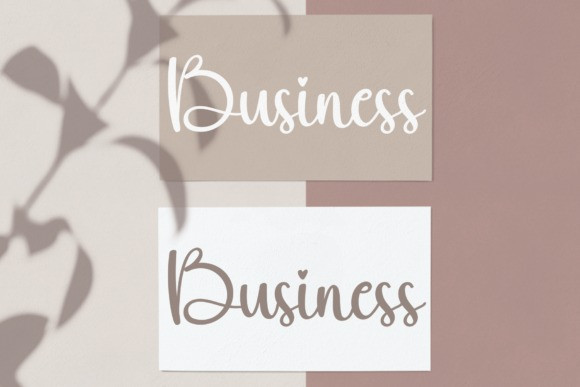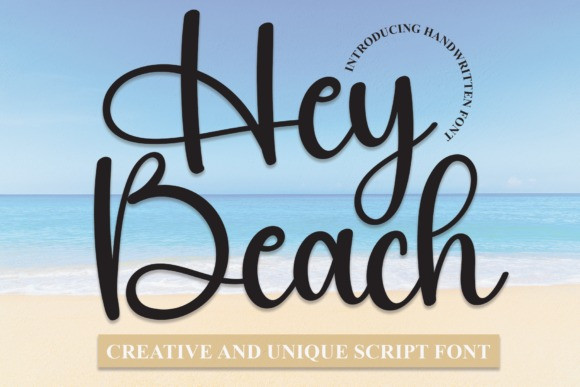
Hey Beach Font
Hey Beach Font is a fun and friendly handwritten font. Use it to turn any design idea into a true standout. Get inspired by its unique charm and create lovely designs.